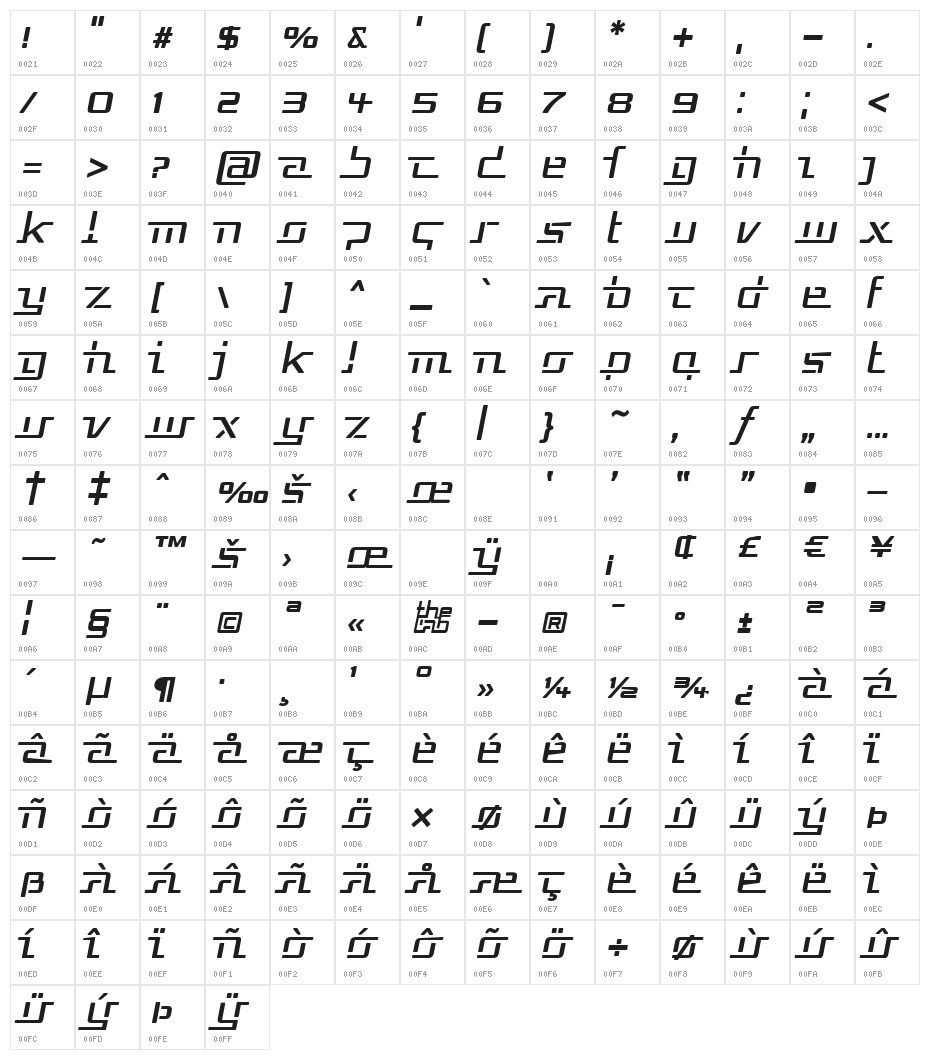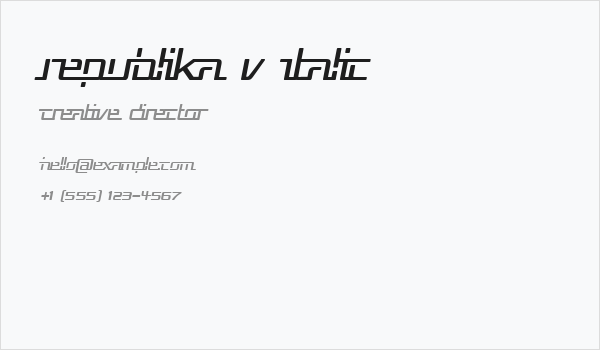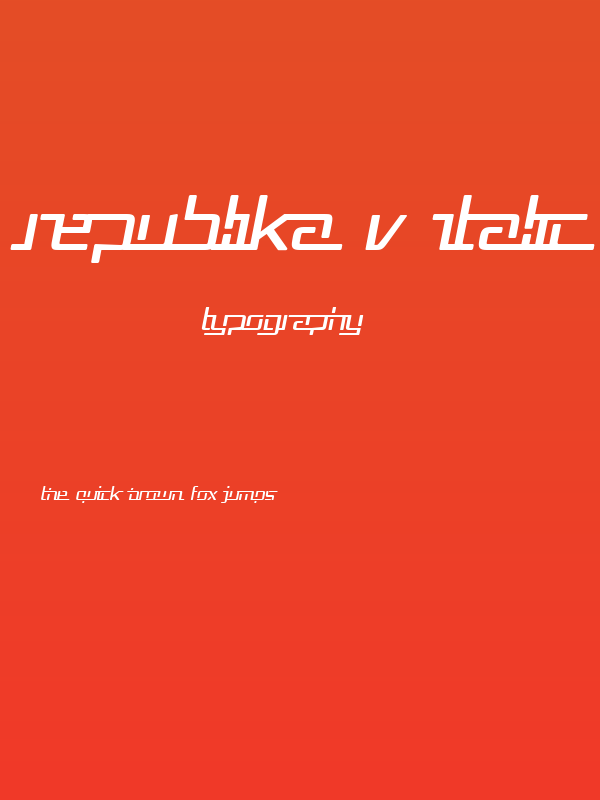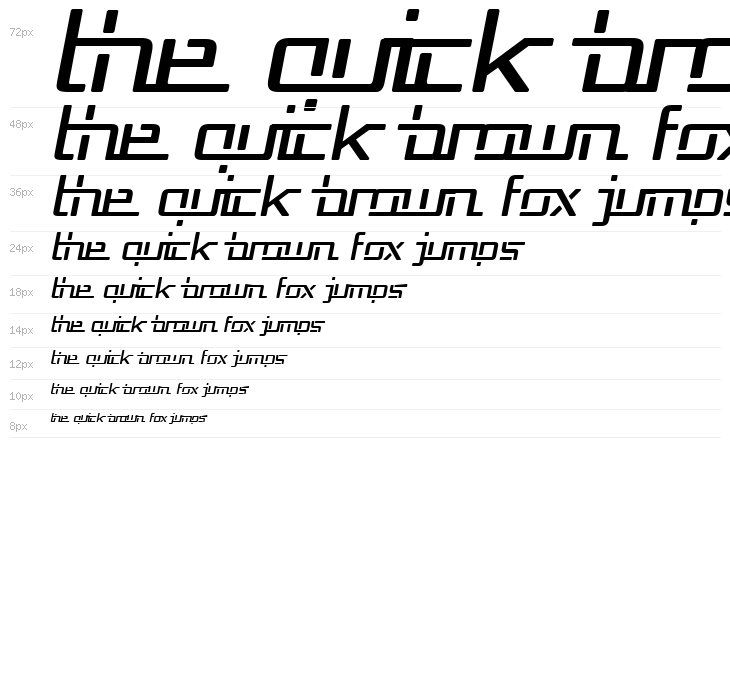
Republika V Italic Font
Republika V Italic Description
This font exhibits a modern and futuristic style with a distinctive italic slant. The characters are designed with a geometric and angular approach, featuring sharp edges and clean lines. The uppercase and lowercase letters maintain a consistent height, contributing to a uniform appearance. The numerals are bold and easily readable, while the special characters are crafted to match the overall aesthetic. The font's design is sleek and contemporary, making it suitable for projects that require a cutting-edge look.
| Proposed Projects | Ideal for technology branding, futuristic posters, video game interfaces, and modern web design. |